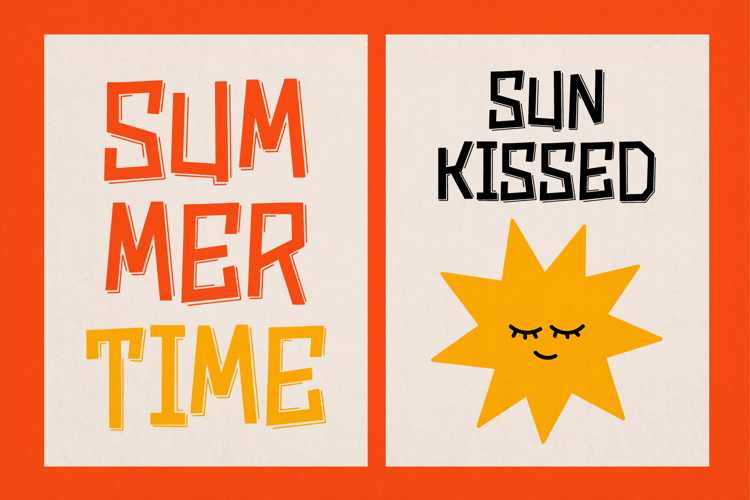
Rumble Block Font
Rumble Block | Hand Drawn Display Font product packaging, mugs, quotes, posters, shopping bags, t-shirts, book covers, name card, invitation cards, greeting cards, label, photography, watermark, special events, and all your other lovely projects that need a Hand Drawn taste.